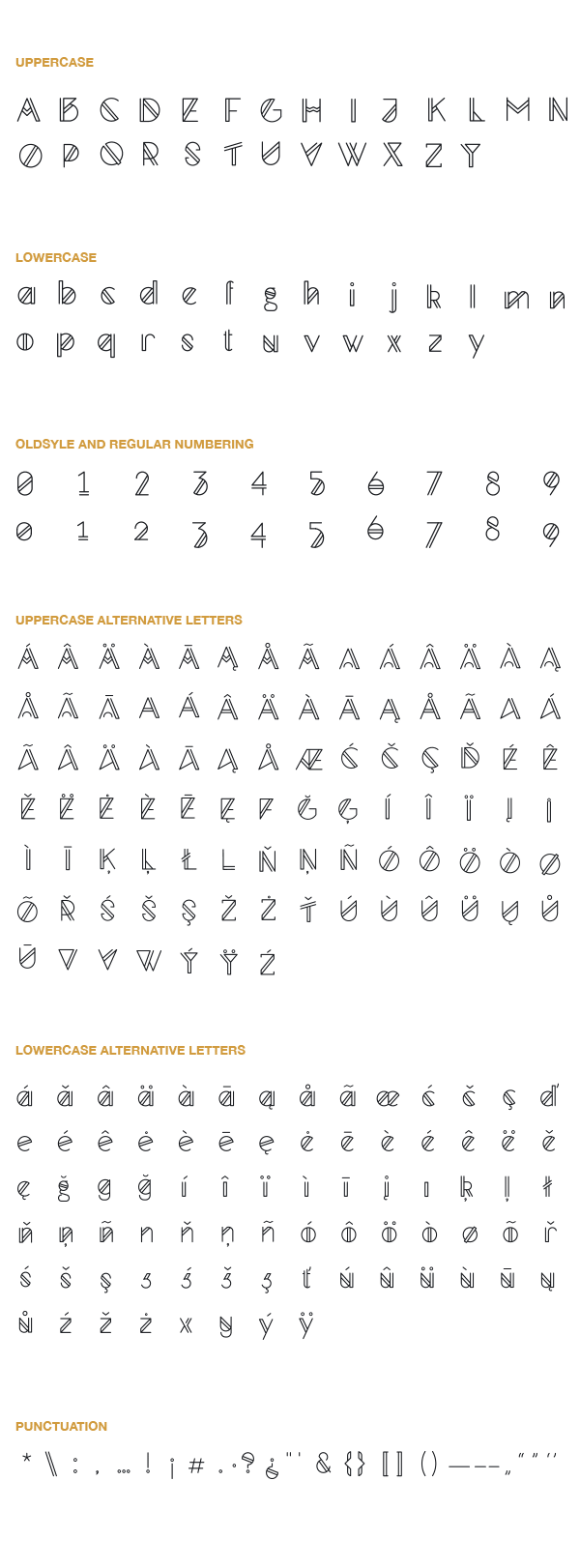
Mad Squire Font is a free geometric and experimental sans serif typeface inspired by double parallel lines. Mad Squire was made as a personal project and so it is completely free for both personal and commercial use. Mad Squire is designed by Nele Tullus.